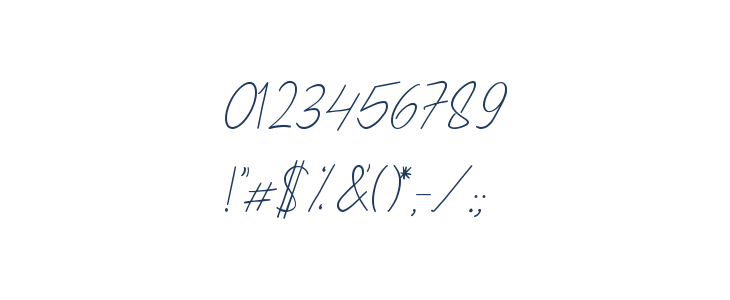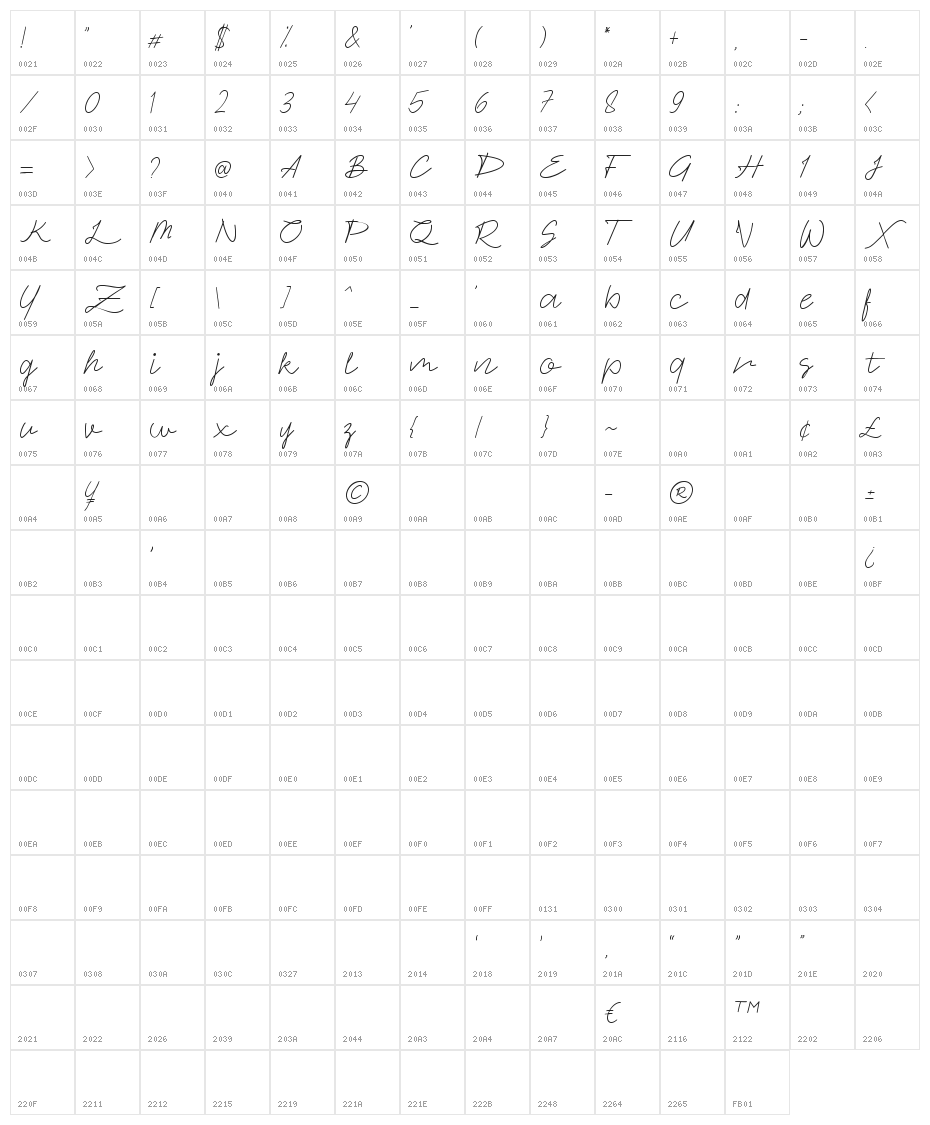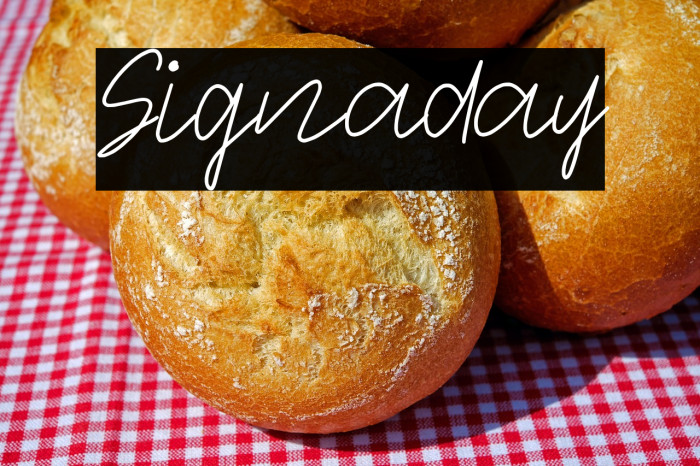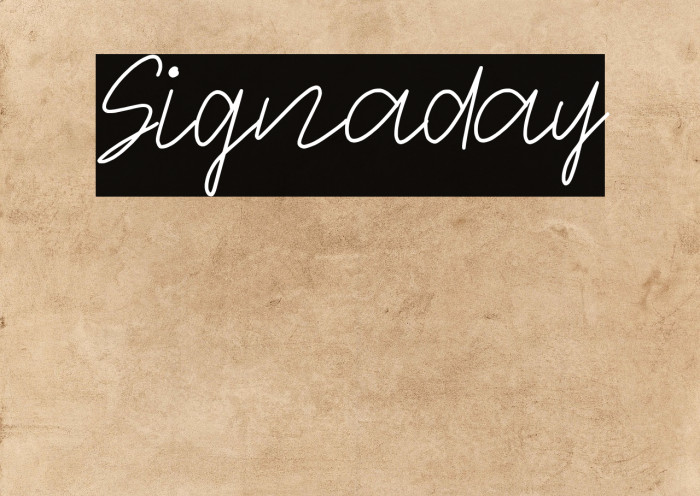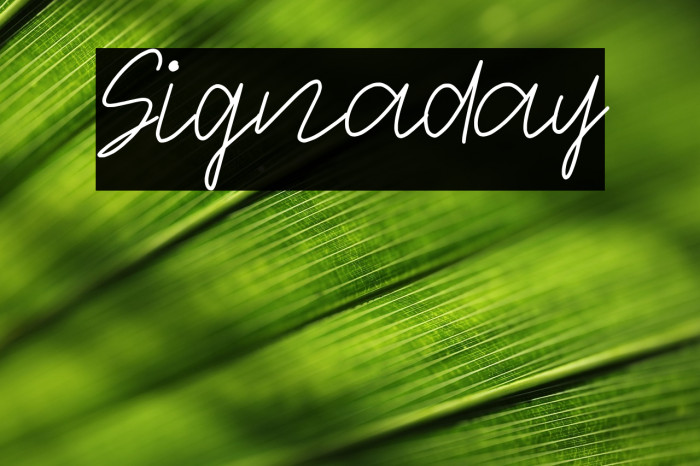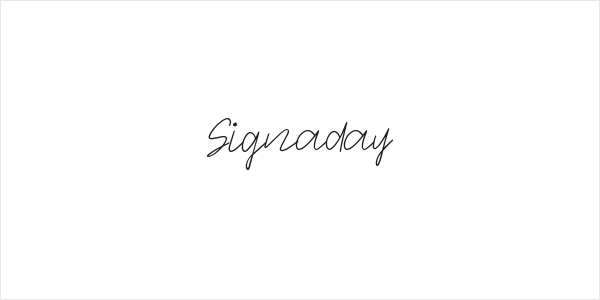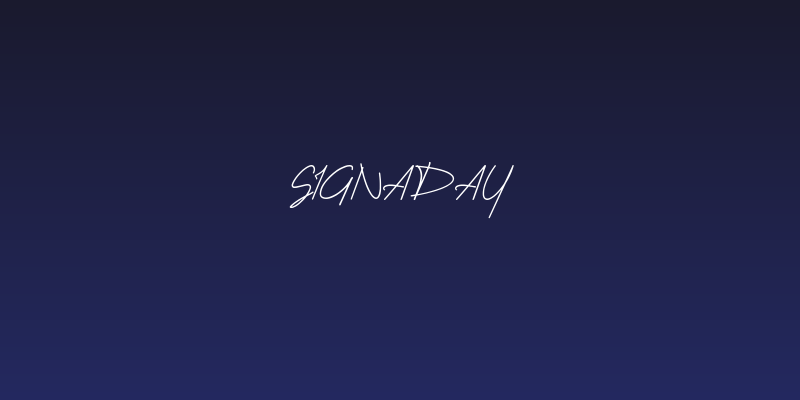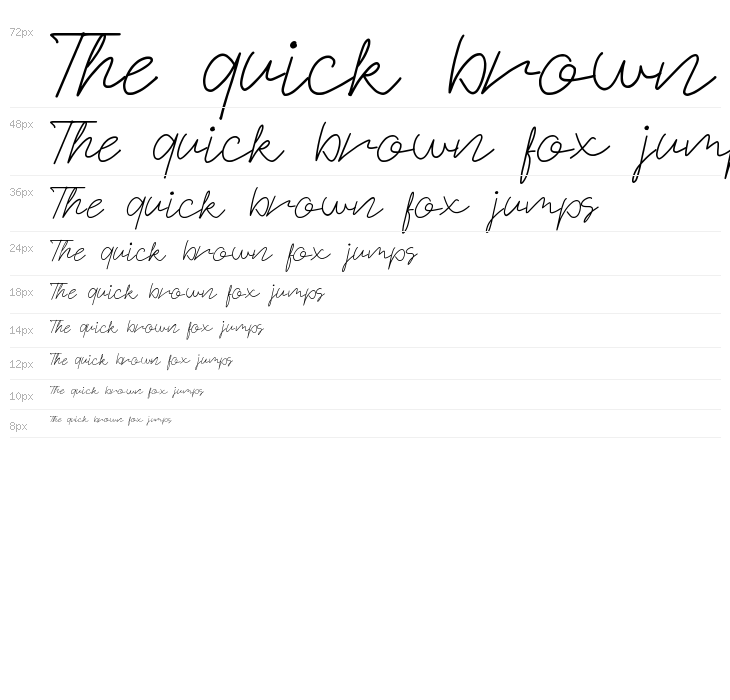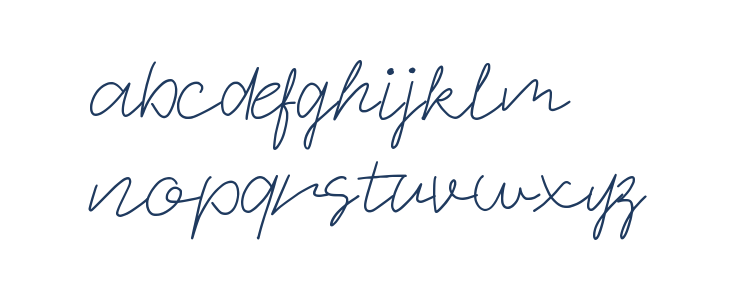
Signaday Font
Signaday Description
This font exudes a casual and elegant handwritten style, characterized by its fluid and connected letterforms. The strokes are smooth and slightly slanted, giving it a natural and personal touch. It maintains a consistent flow, with each character seamlessly transitioning into the next, reminiscent of cursive handwriting. The uppercase letters are slightly more formal, while the lowercase letters are more relaxed and free-flowing. The numerals and special characters maintain the same handwritten aesthetic, ensuring a cohesive look across all text. This font is perfect for projects that require a personal or intimate feel, such as invitations, greeting cards, or personal branding.
| Overall Style | Casual, Elegant |
| Use Case | Headlines, Logos, Personal projects |
| Proposed Projects | Ideal for invitations, greeting cards, personal branding, and any project requiring a personal touch. |